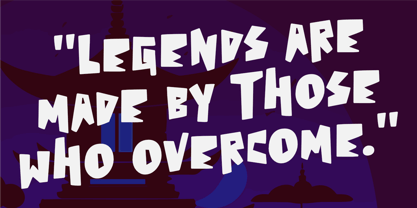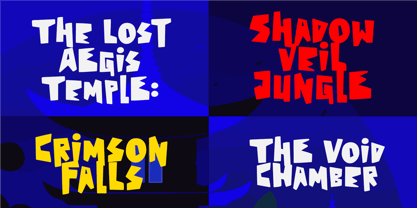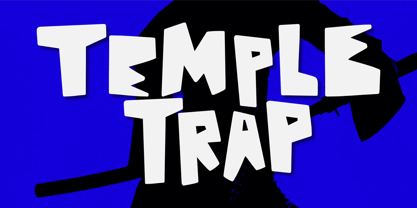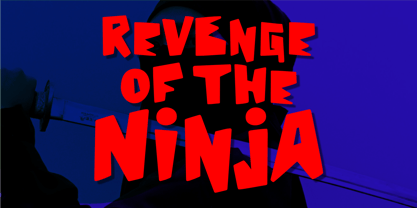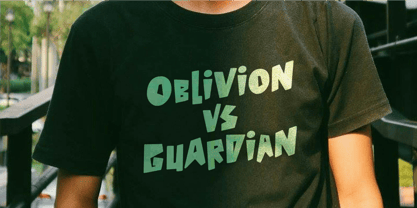
Temple Trap
Temple Trap is a bold, fun, and playful font that works well for gaming titles, movie posters, logos, and product packaging. Its thick, rounded letters give it a friendly and adventurous feel, while the slight bounce in the design adds energy and excitement. Inspired by exploration and treasure-hunting, it’s perfect for titles and branding with action-packed themes.
Temple Trap Font features :
• Uppercase & Lowercase
• Numbers, symbols, and punctuation
• Multilingual Support.